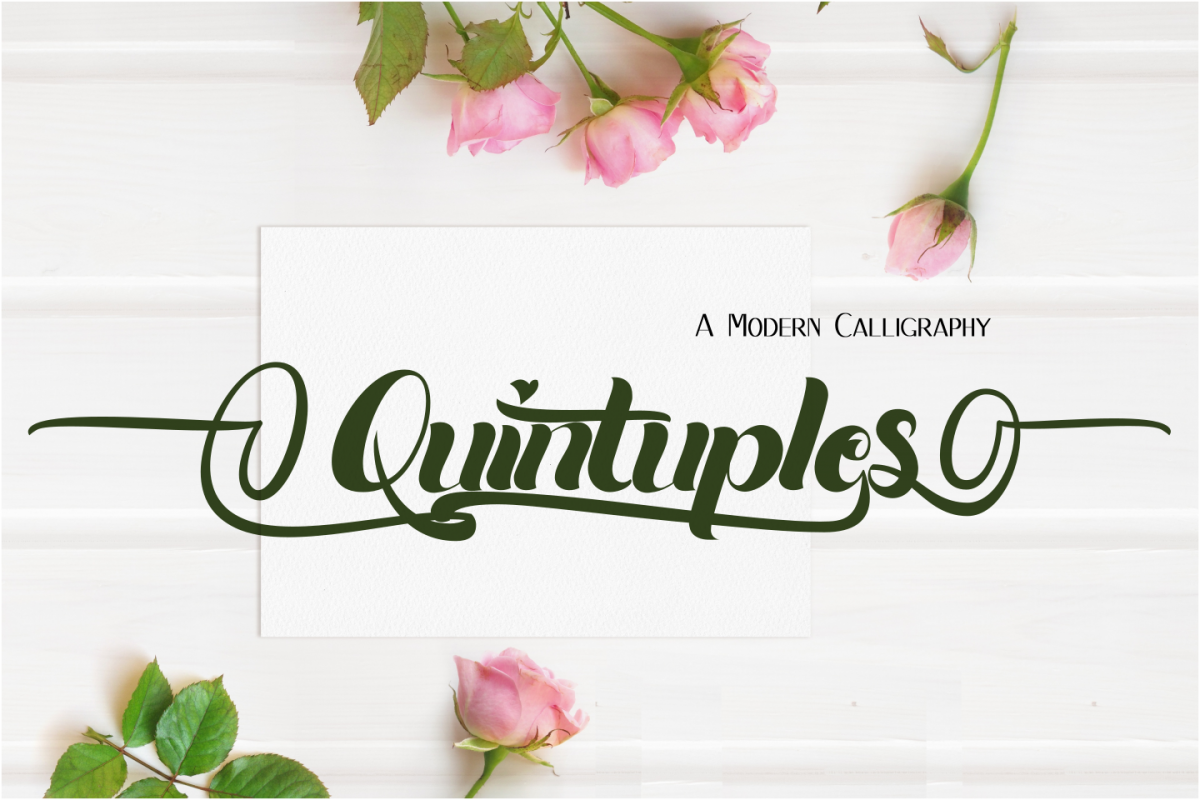
Quintuples Modern Calligraphy
Quintuples is a charming modern calligraphy typeface. it is consist of  Uppercase, lowercase, complete punctuation, and multilingual character. also a lot of alternates character for both uppercase and lowercase in SS01, SS02, and SS03 OpenType feature. it will add a sophisticated charm to any design project.